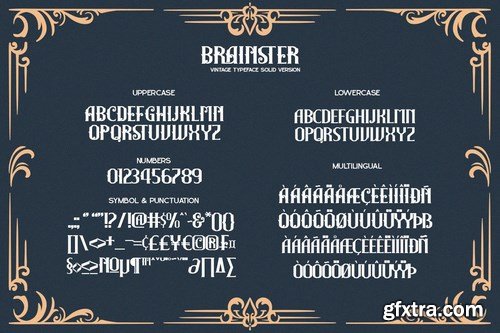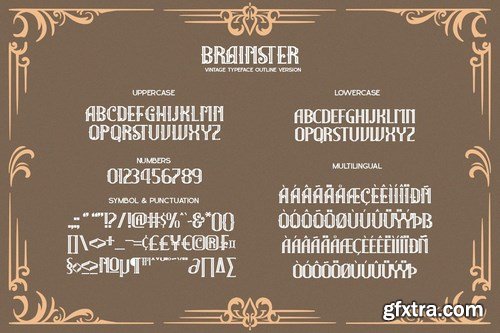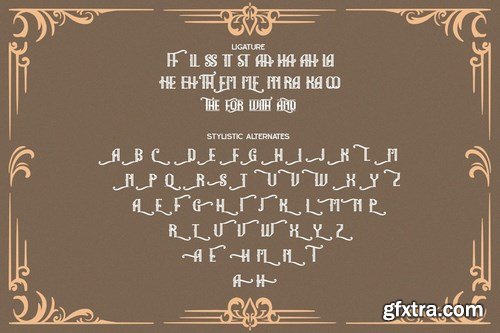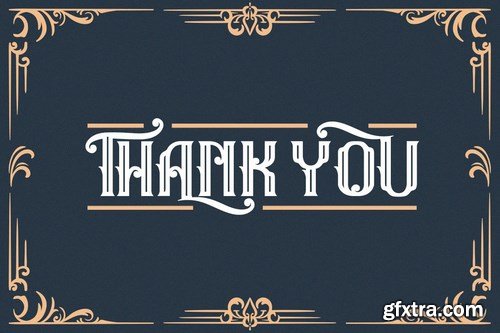
CM - The Brainster - Vintage Display Font 5200584
The Brainster is an amazing display font. The font is suitable for any project like branding, lettering, T-shirt print, and may others.